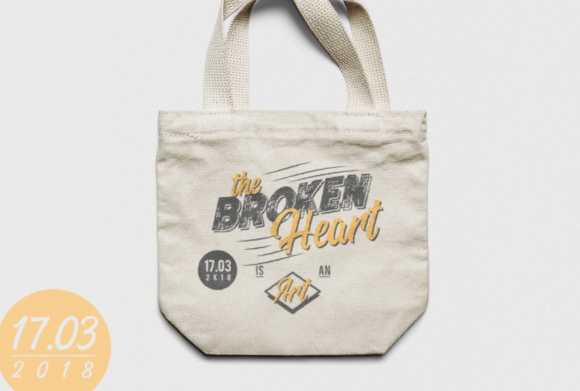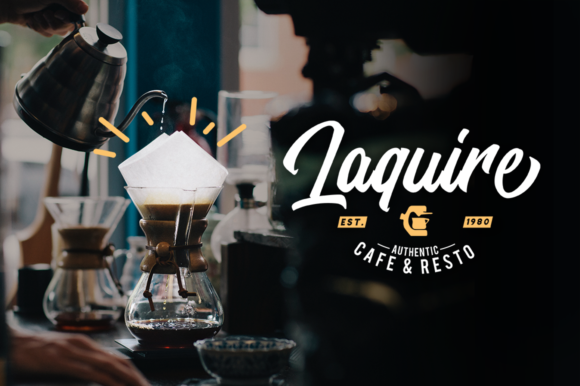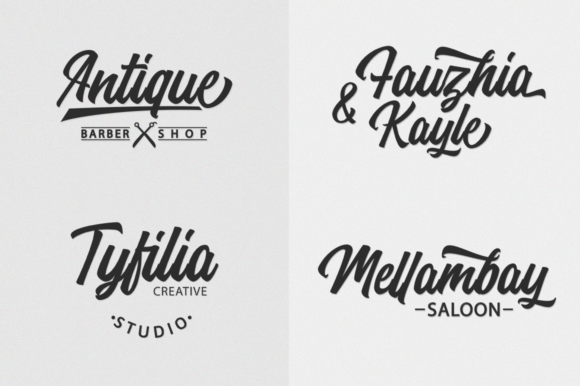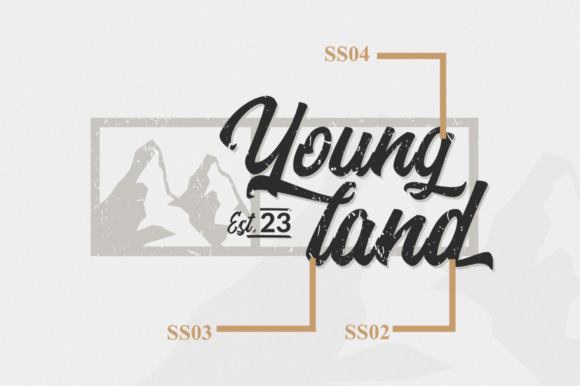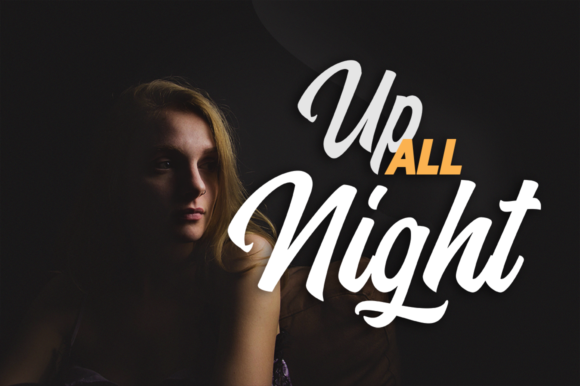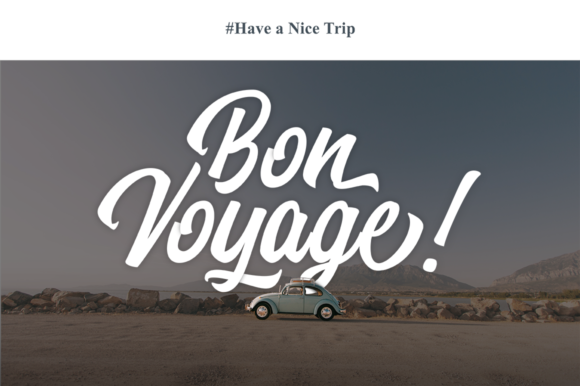
Brentha Font
About Brentha Font
Brentha is a sexy, tidy script with clear lines. It was made by pencil scratches, perfect for adding a striking look to your design!